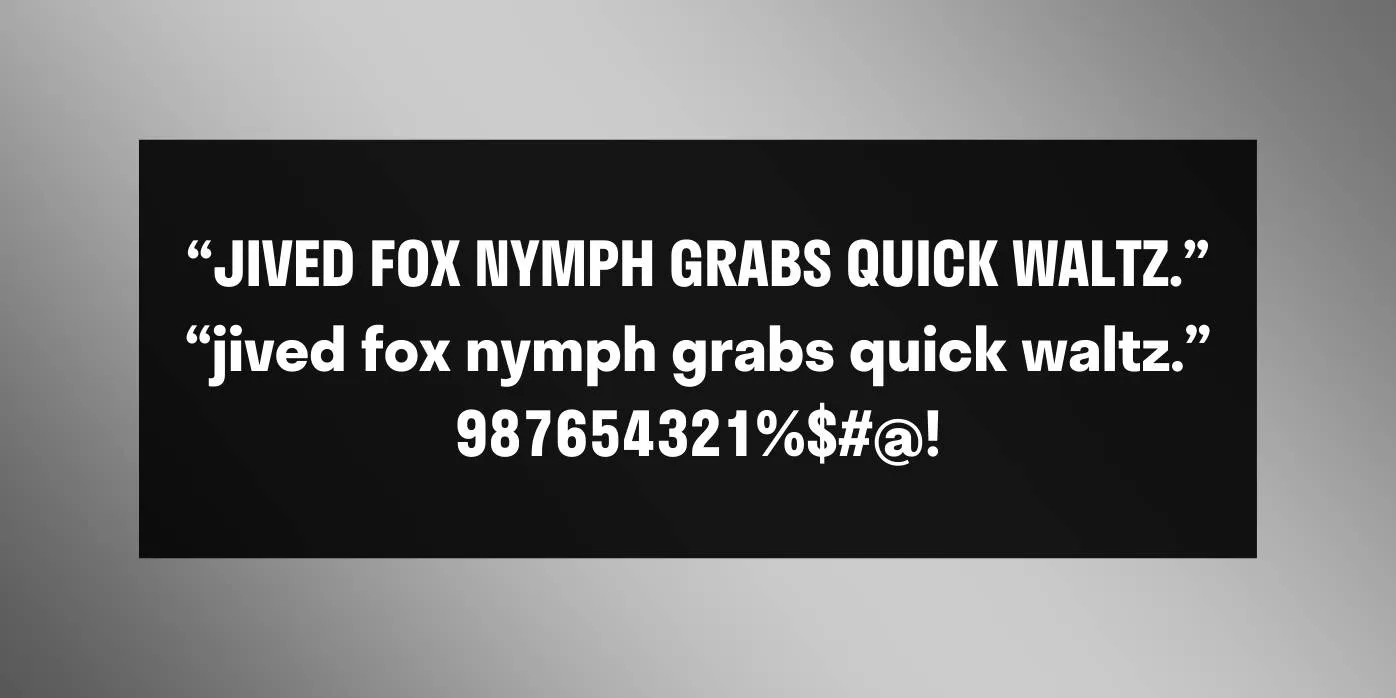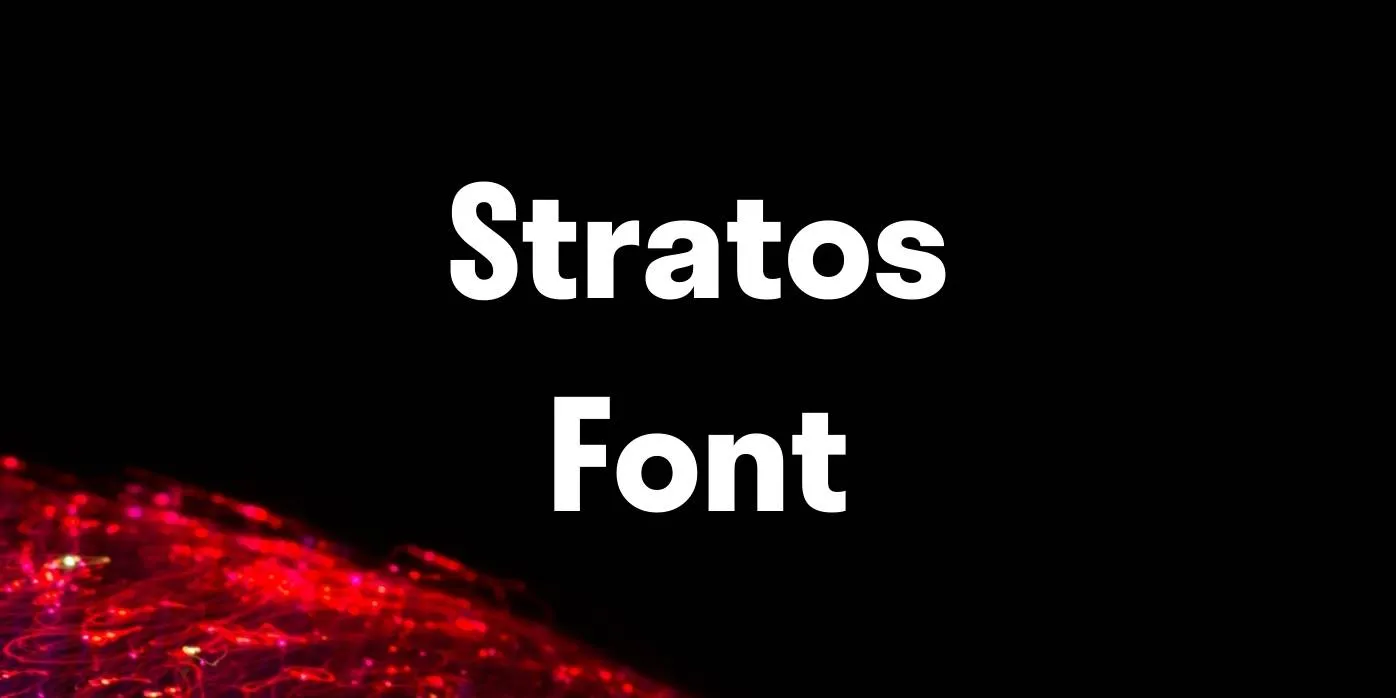
Stratos Font
Stratos Font is a sans-serif typeface designed in 2016 by Cosimo Lorenzo Pancini and Andrea Tartarello. The design is a revival of a 2008 font by the same designers, called Stratos Pro. It is available in seven weights, from ExtraLight to Black, each with matching italics. The typeface is suitable for both display and text use.
It works well for headlines, branding, and advertising. The lowercase letters have a tall x-height, making them legible in smaller sizes. This Font includes a set of small caps, old-style figures, fractions, superscripts, and subscripts. It also has a set of arrows, which can be useful for infographics or data visualizations.